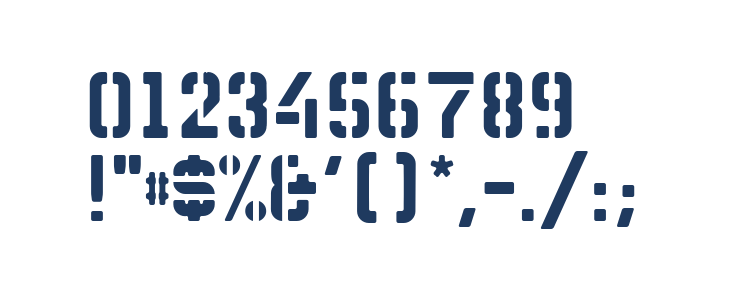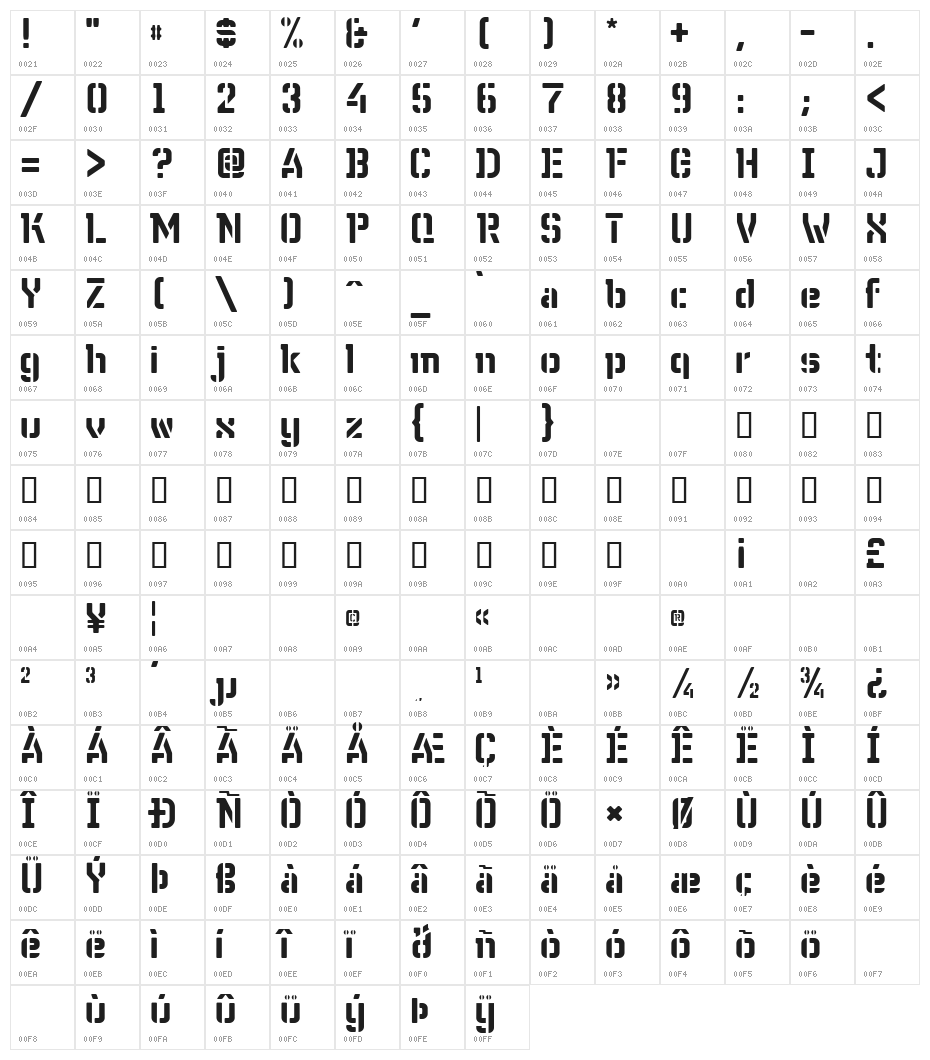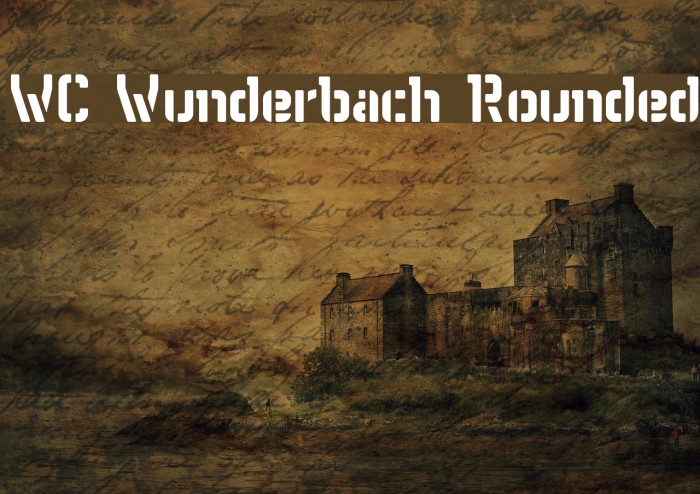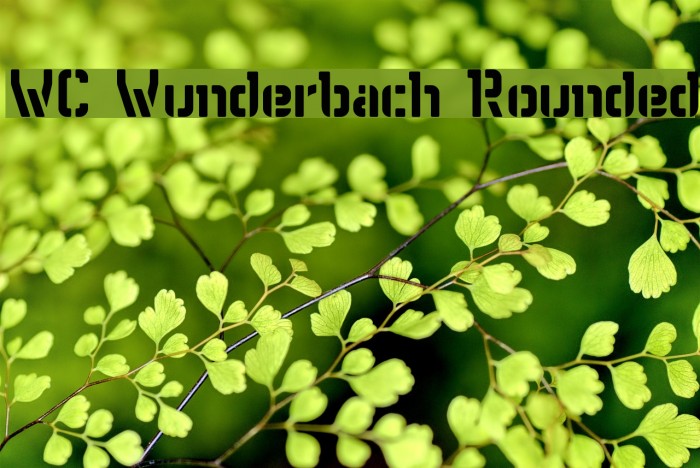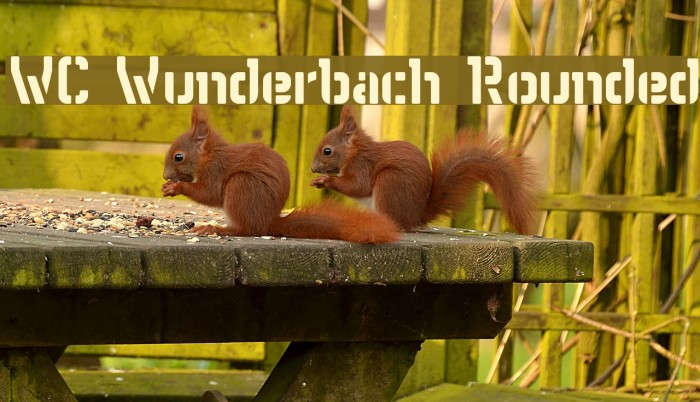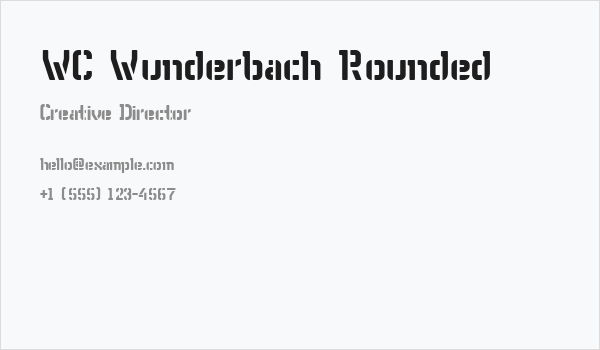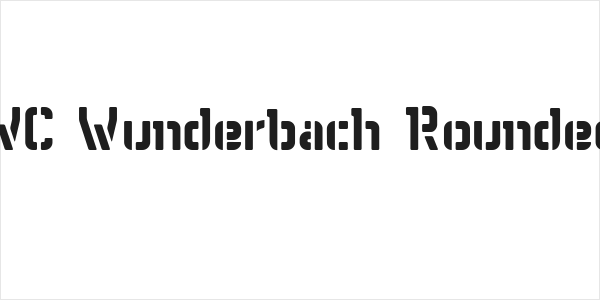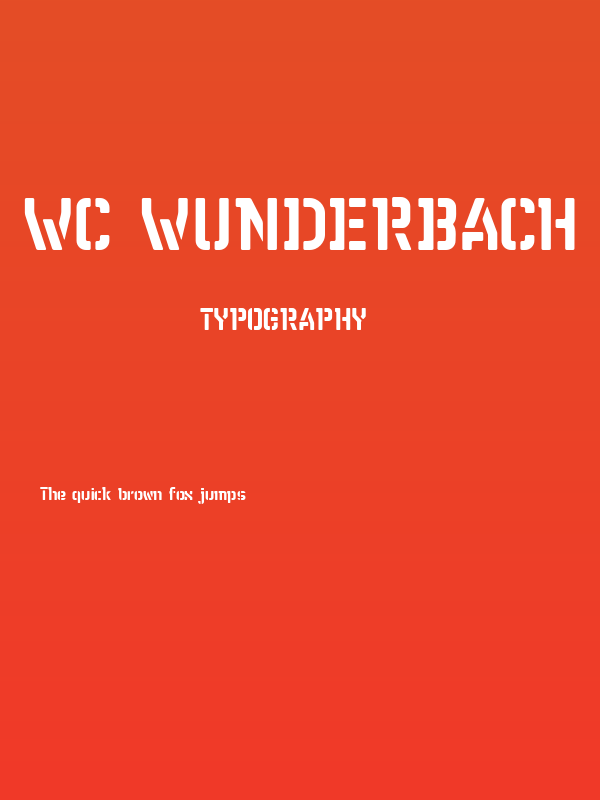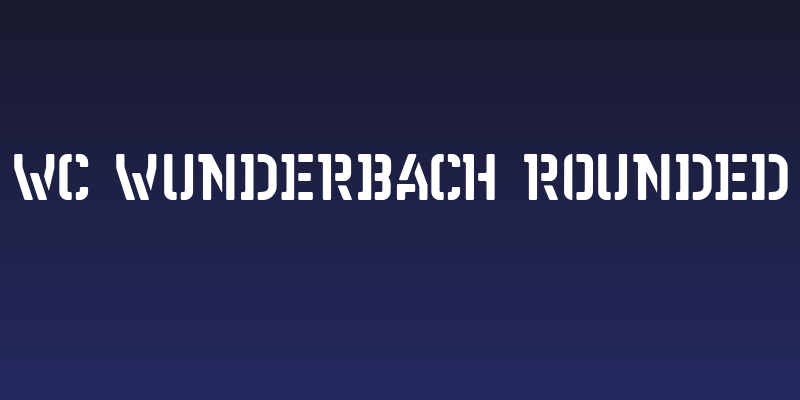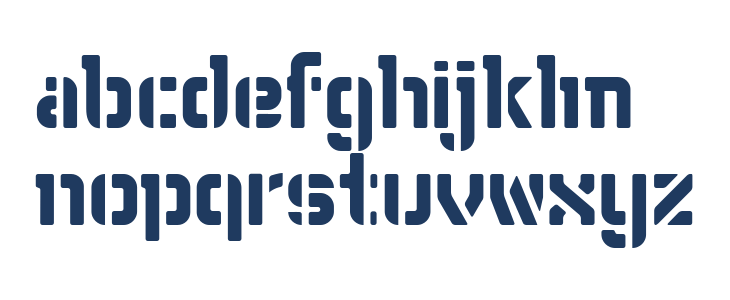
WC Wunderbach Rounded Font
WC Wunderbach Rounded Description
This font features a bold, geometric design with rounded edges, creating a modern and industrial feel. The characters are constructed with a stencil-like appearance, where certain segments are intentionally disconnected, adding a unique and edgy aesthetic. The uppercase and lowercase letters maintain a consistent style, with a strong emphasis on vertical and horizontal lines. The numerals and special characters follow the same design principles, ensuring uniformity across all glyphs. This font's distinct style makes it stand out, offering a contemporary twist on traditional stencil fonts.
| Use Case | Logos, Headlines, Posters |
| Proposed Projects | Ideal for branding, packaging, posters, and signage where a modern and edgy look is desired. |